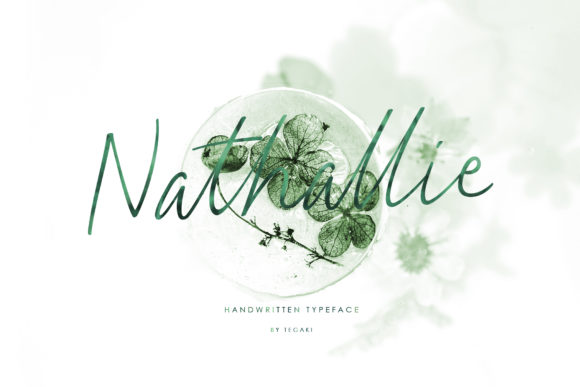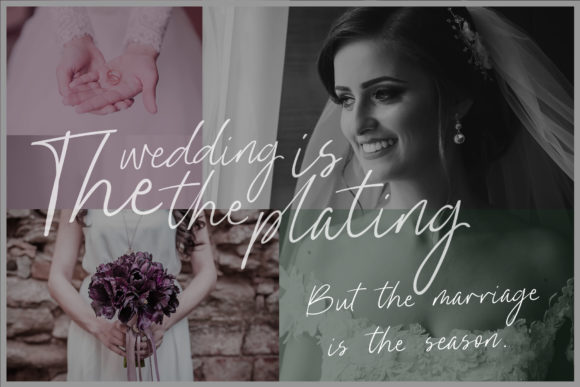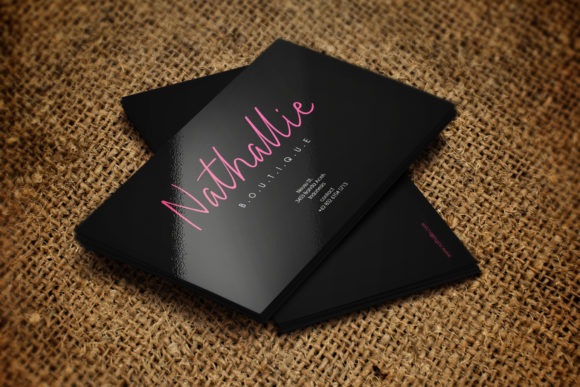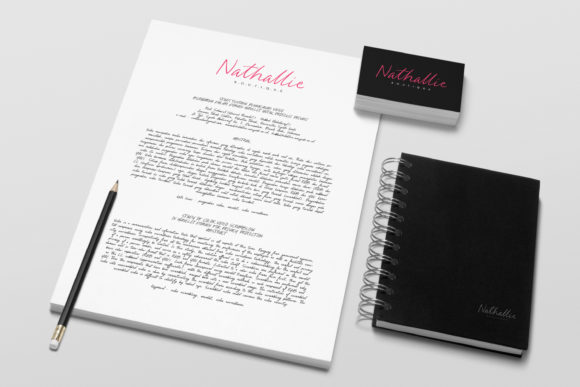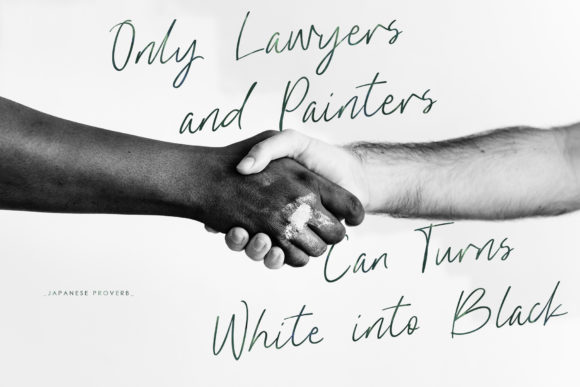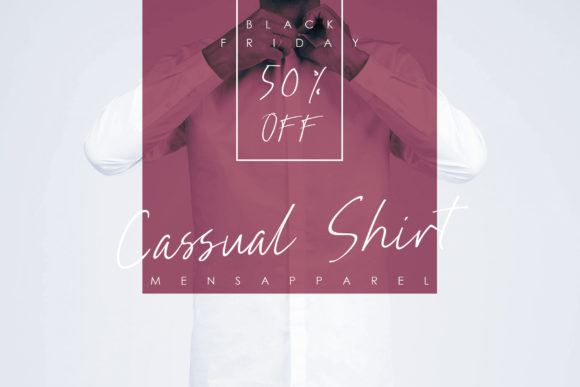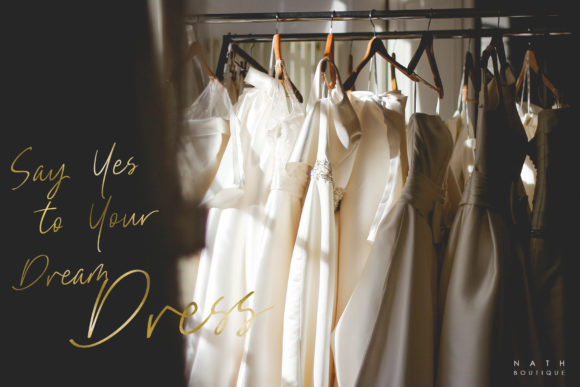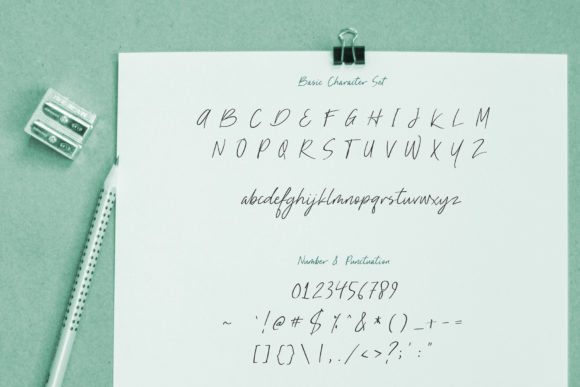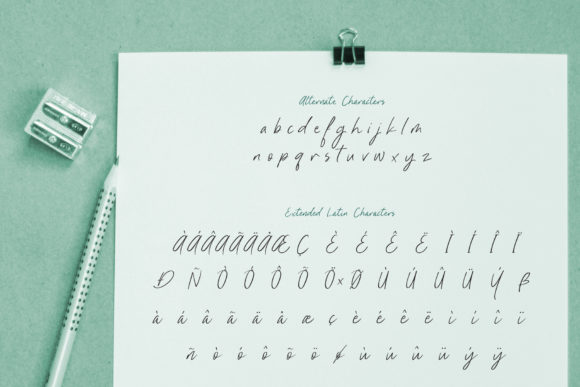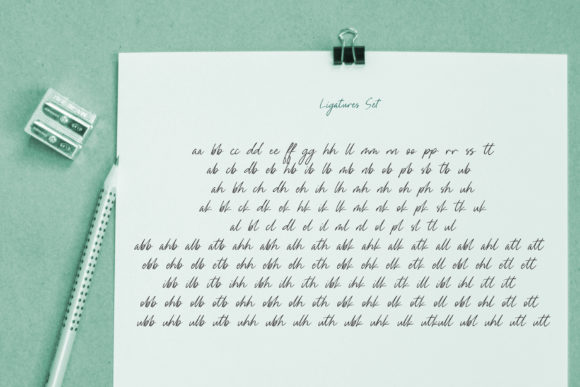
Nathallie Font
About Nathallie Font
Nathallie is a beautiful, natural and light handwritten font with a bold twist. It will turn any design project into a stand out!